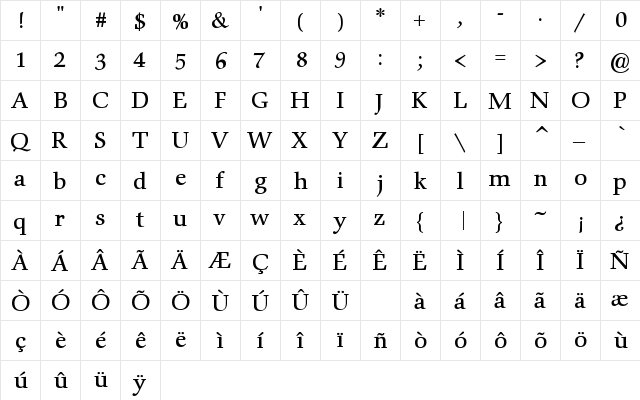
CrownRomanHMK Regular
Design Context for CrownRomanHMK Typeface
CrownRomanHMK offers clean, dependable letterforms without strong stylistic allegiance, making it a practical choice for designers who need flexibility.